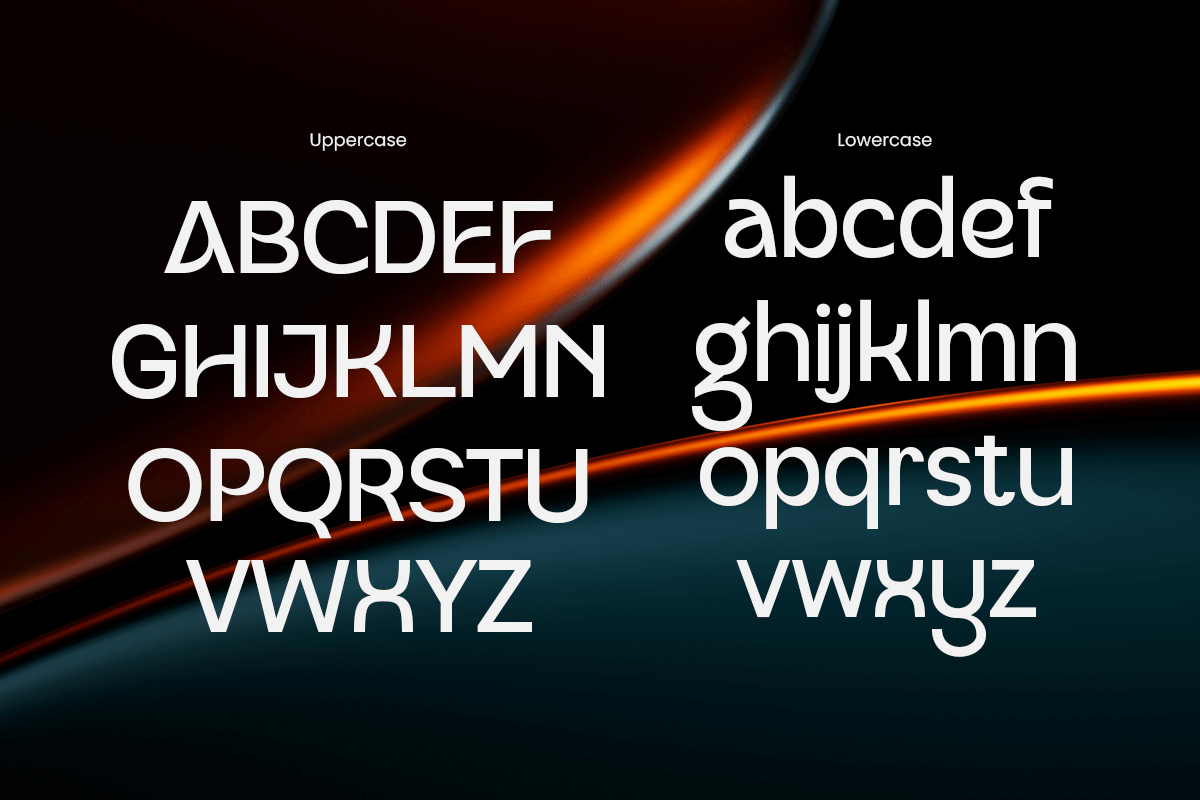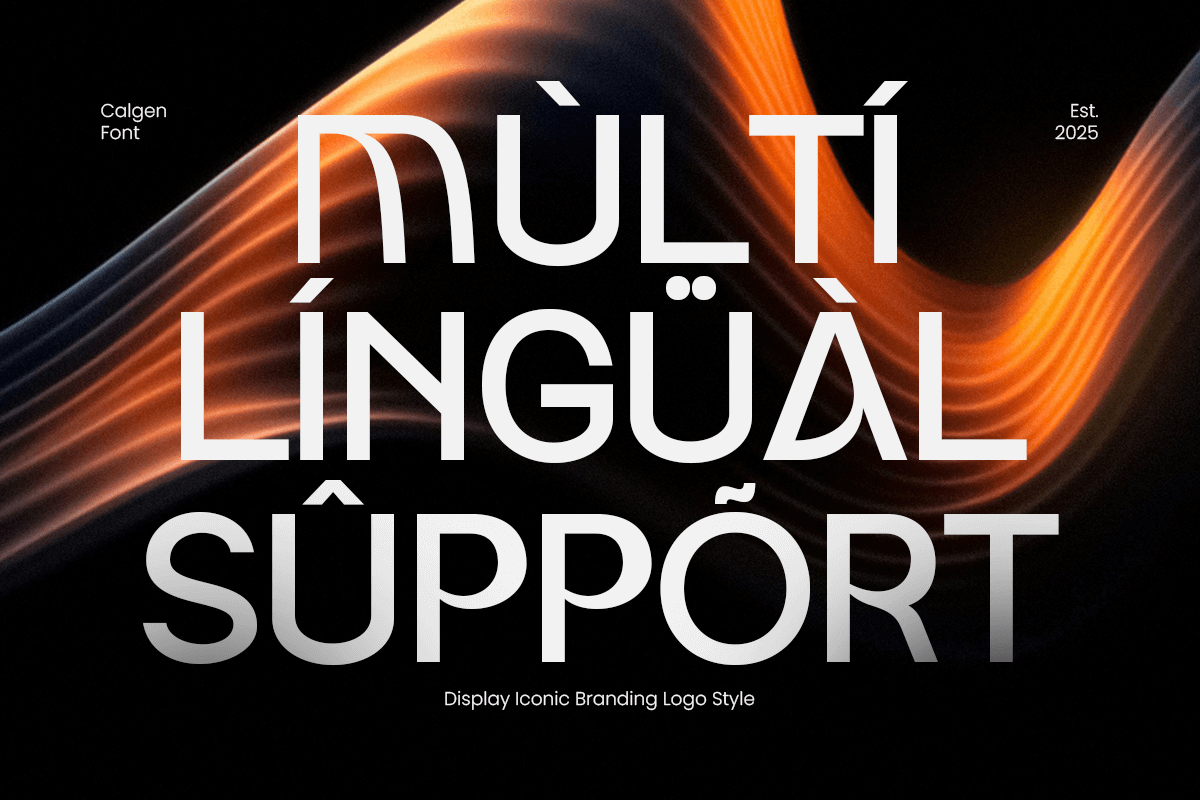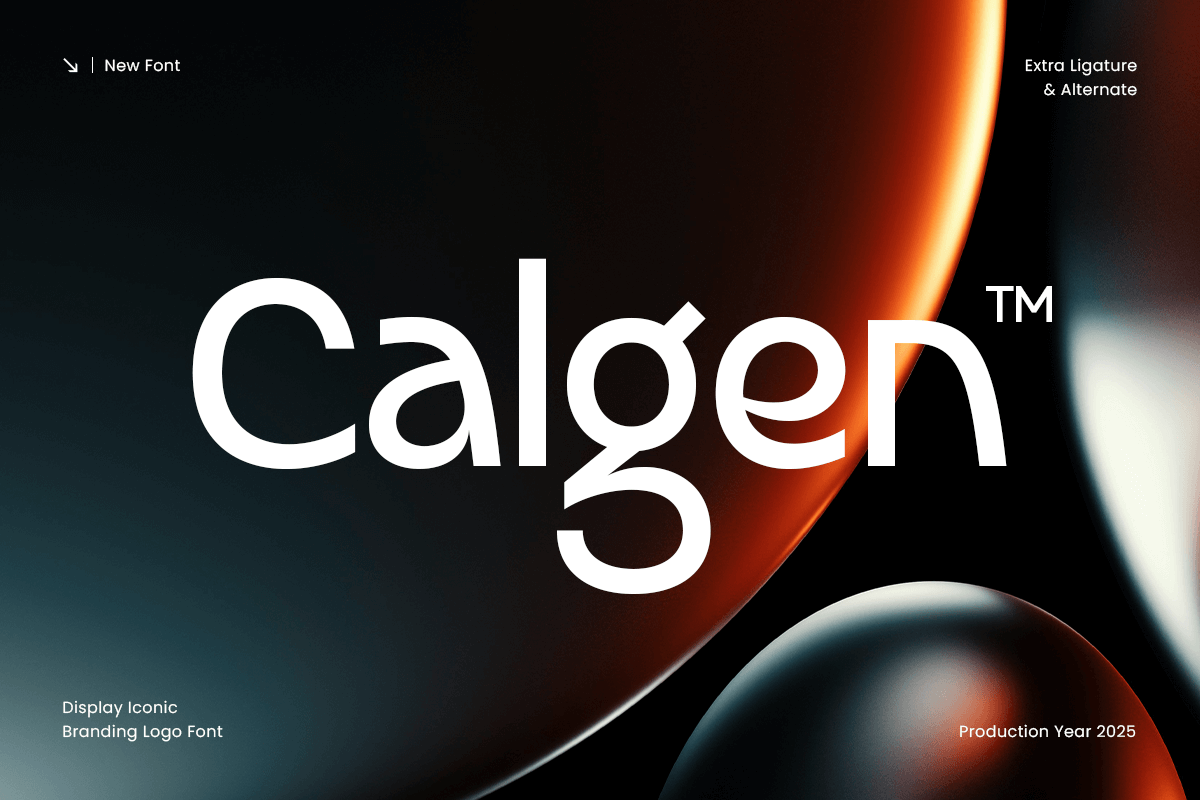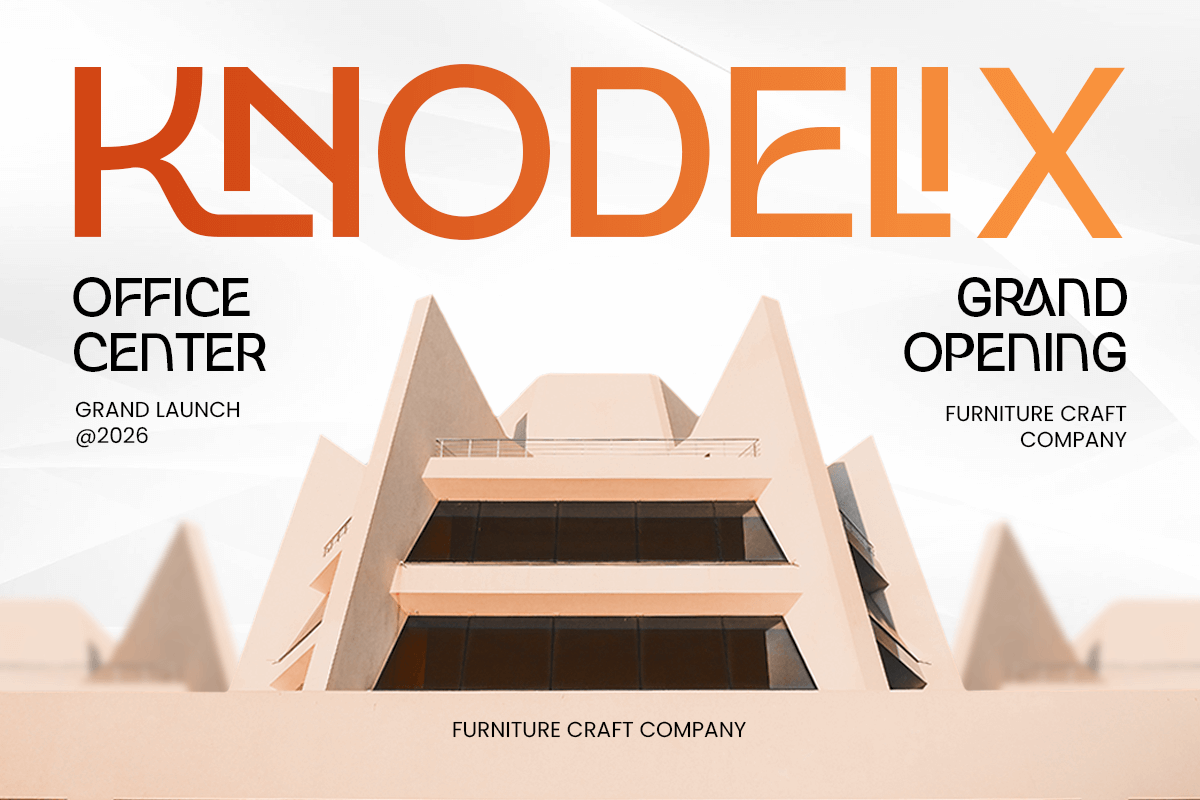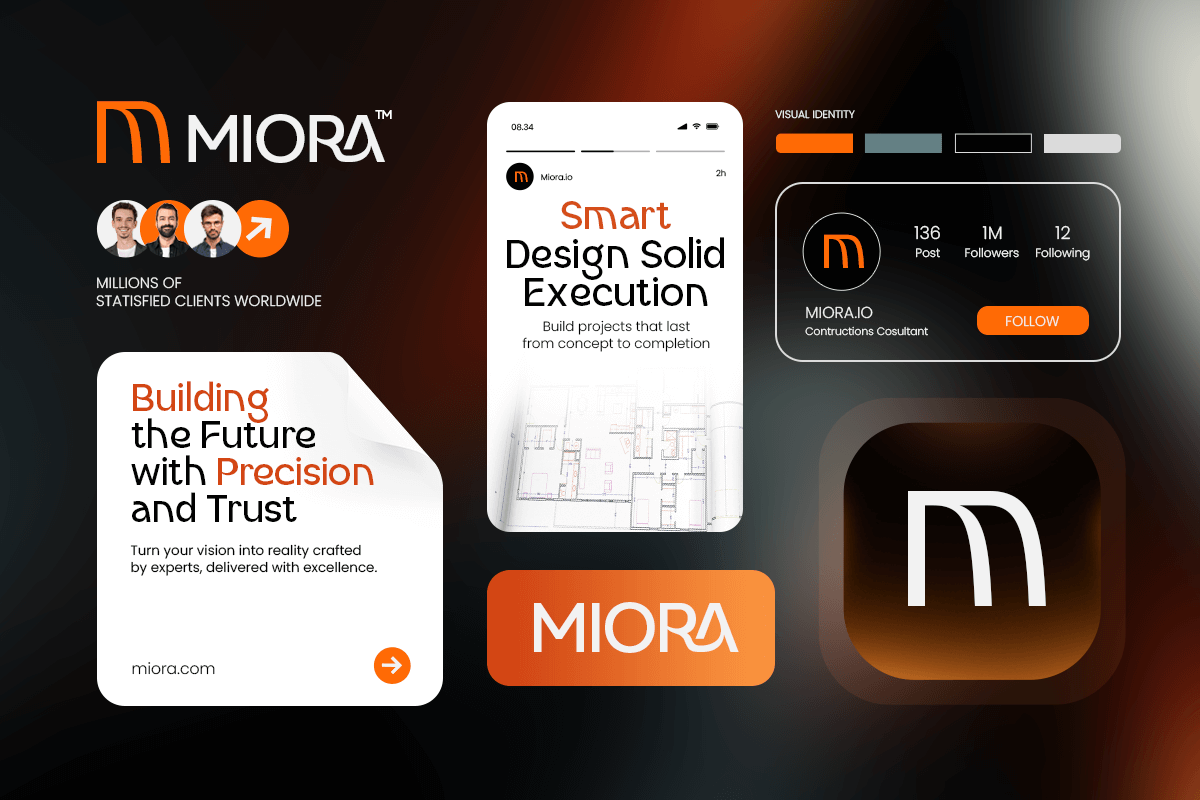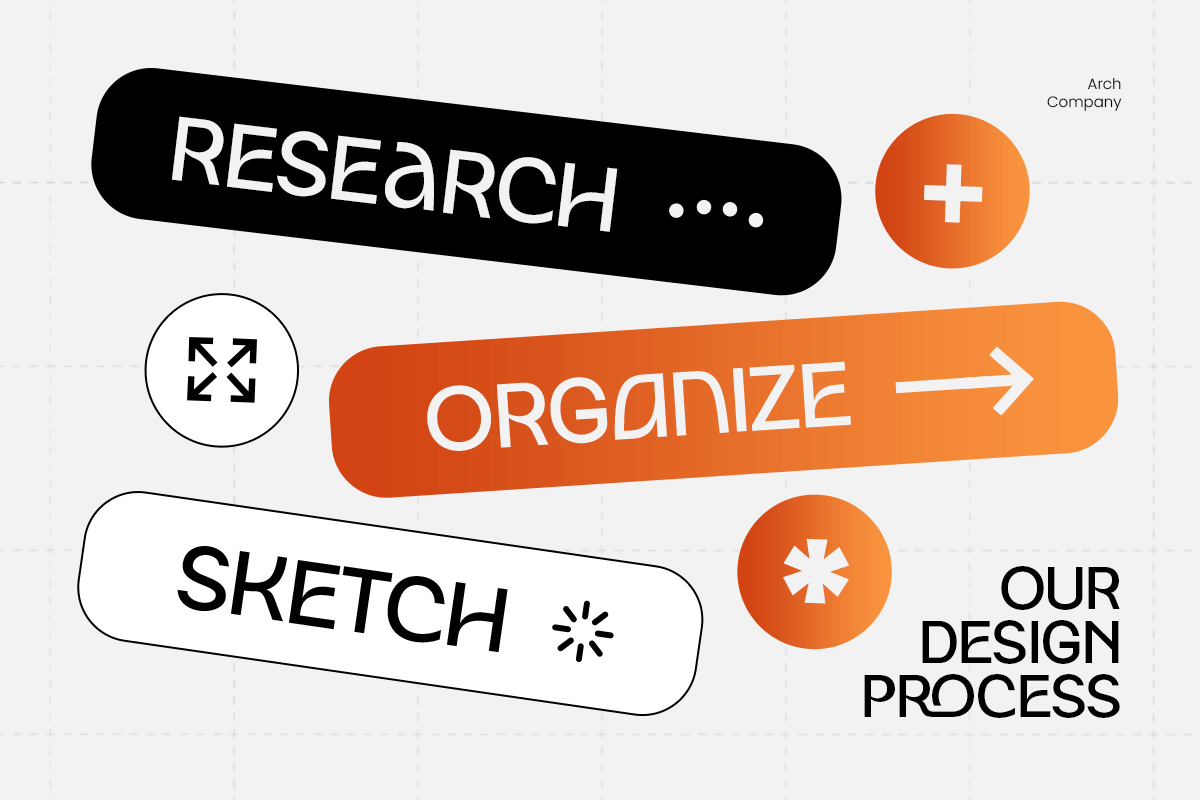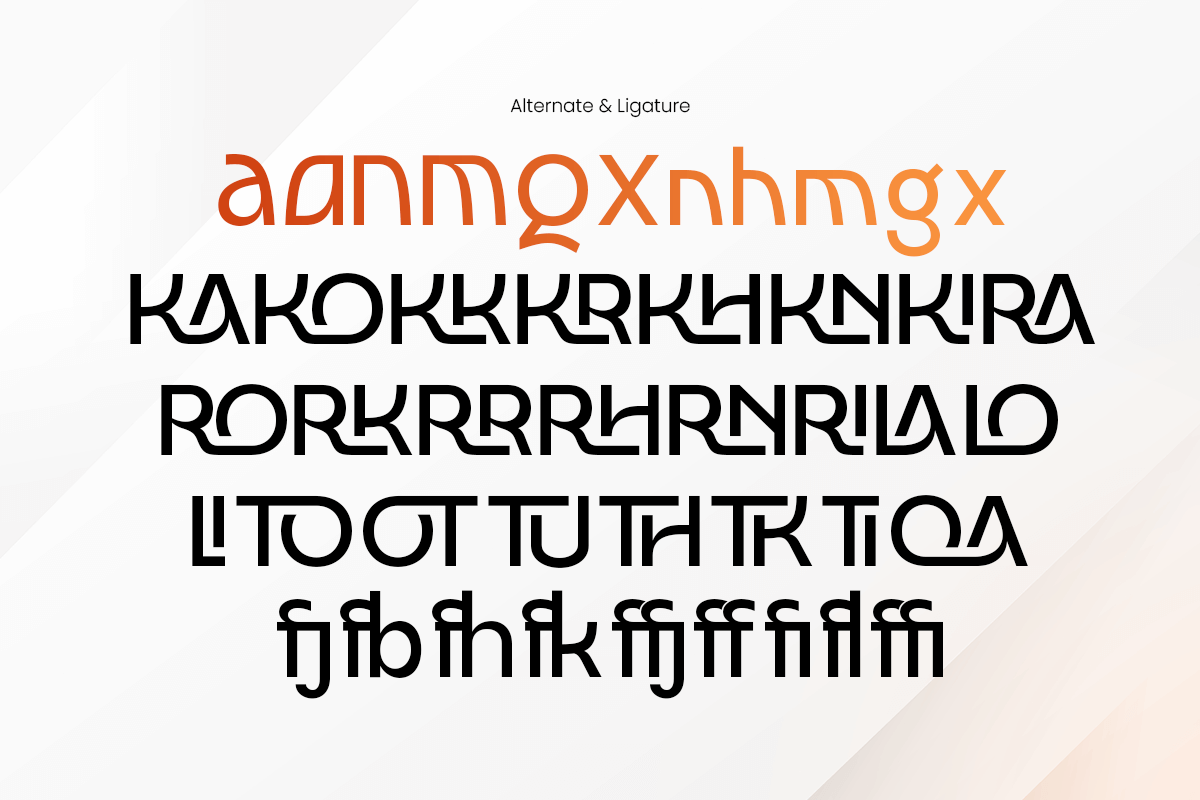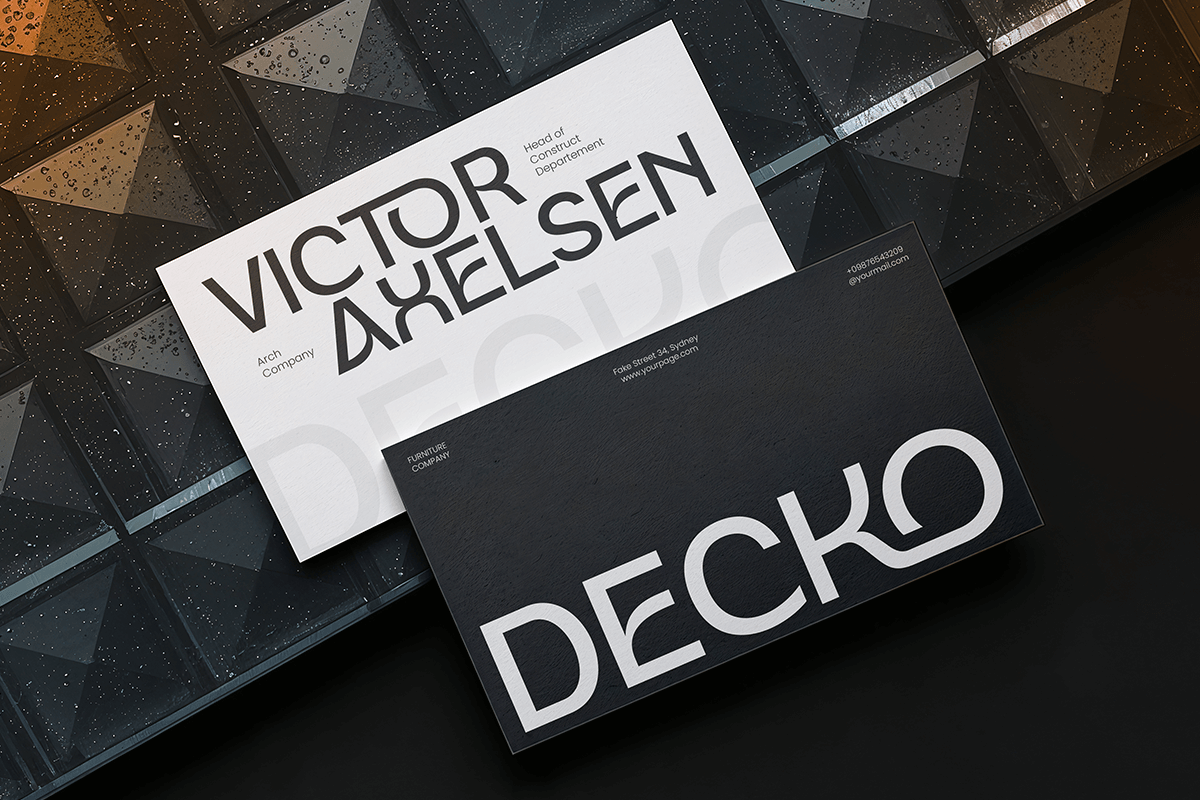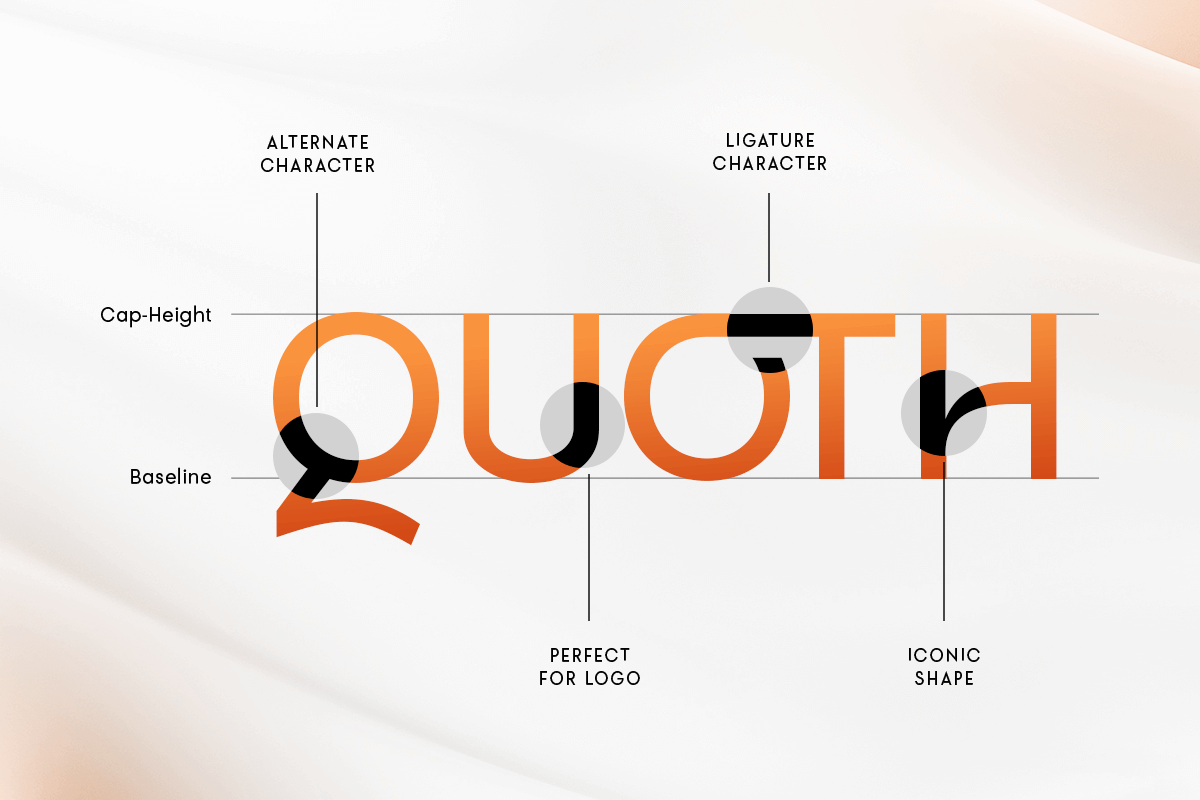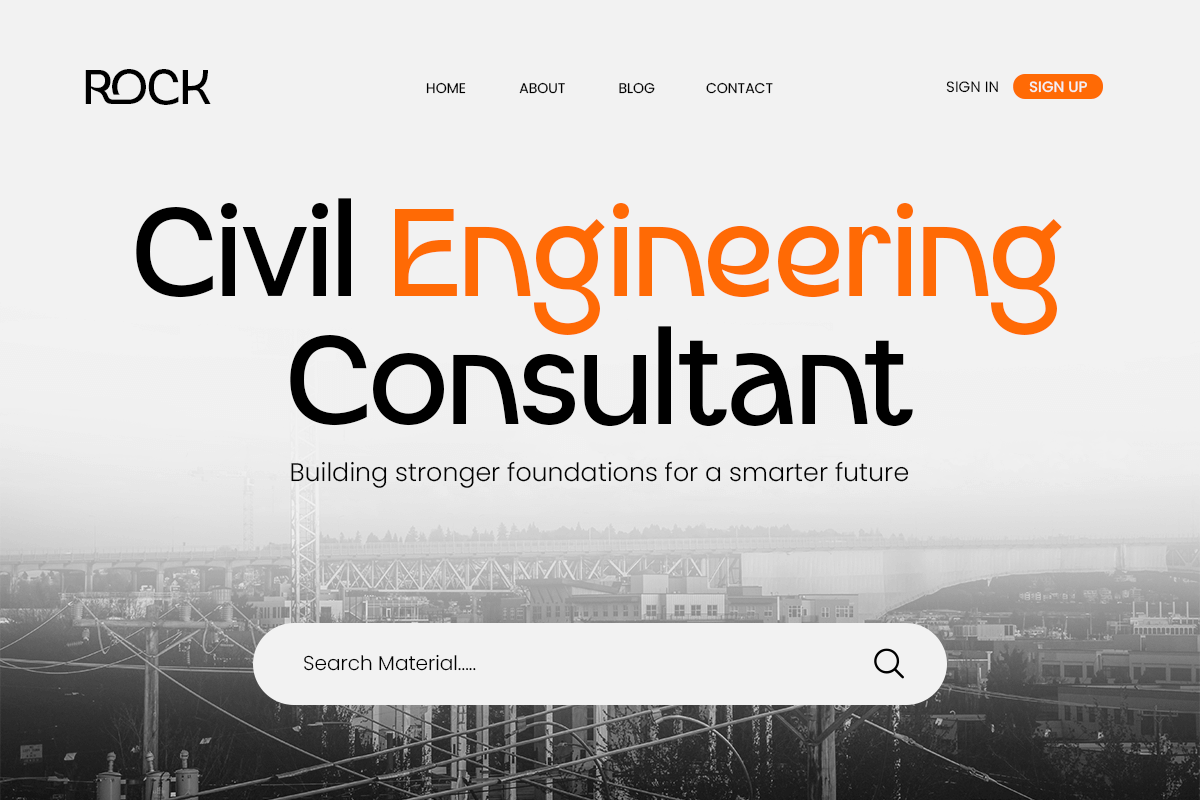
Calgen Display Iconic Branding Font
Calgen – Display Iconic Branding Font
Calgen is a modern display font designed to create strong, iconic, and memorable branding. With its bold construction, clean shapes, and distinctive visual presence, Calgen is perfect for logos, brand identities, headlines, posters, packaging, and digital branding that needs instant recognition.
Built to stand out, Calgen delivers a powerful balance between simplicity and character. Its iconic display style helps brands communicate confidence, creativity, and professionalism, making it an excellent choice for startups, creative studios, fashion labels, and modern businesses seeking a bold typographic identity.
Calgen – Display Iconic Branding Font Features:
* Iconic modern display style with strong branding appeal
* Ideal for logos, headlines, posters, and brand identity
* Uppercase, lowercase, numerals, and punctuation included
* Clean shapes with balanced spacing for clarity
* Perfect for bold, modern, and memorable visual designs
Make your brand instantly recognizable with Calgen – the display font built for iconic branding.